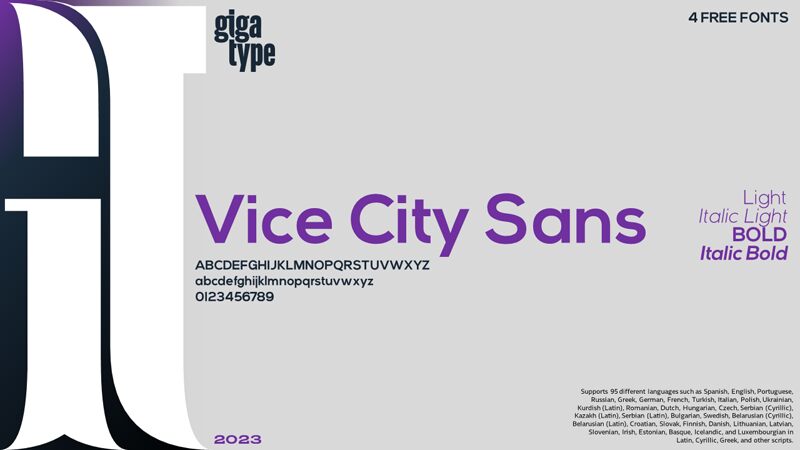
Vice City Sans Italic Bold is a stunning sans serif font designed by GigaType, perfect for modern designs that need a touch of elegance and boldness. Its semi-expanded width makes it ideal for headlines, titles and logos that require a strong presence without sacrificing legibility. This versatile typeface can be used in various design projects such as posters, book covers, packaging designs, and even website headers. With its sleek lines and italicized curves, Vice City Sans Italic Bold adds sophistication to any project it's paired with. Make your designs stand out with this distinctive font family!
Vice City Sans supports Latin, Cyrillic, Greek and other languages.
Vice City Sans Italic Bold